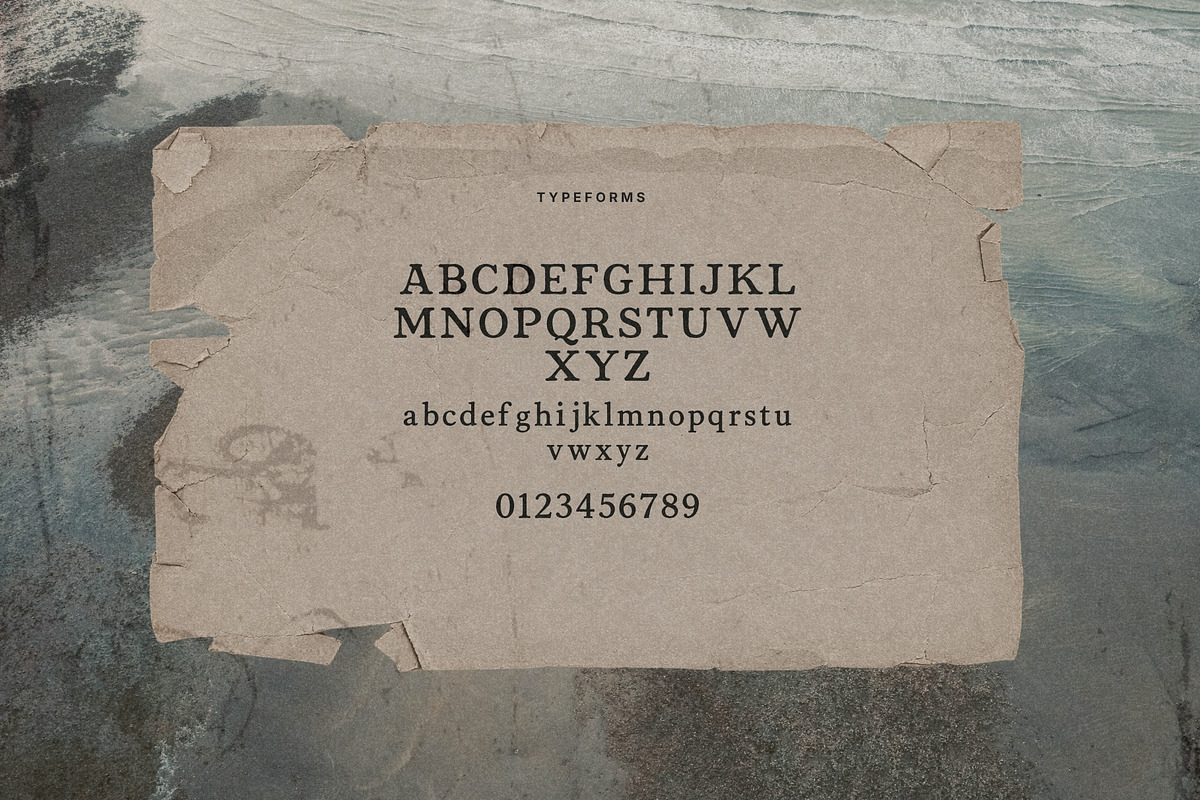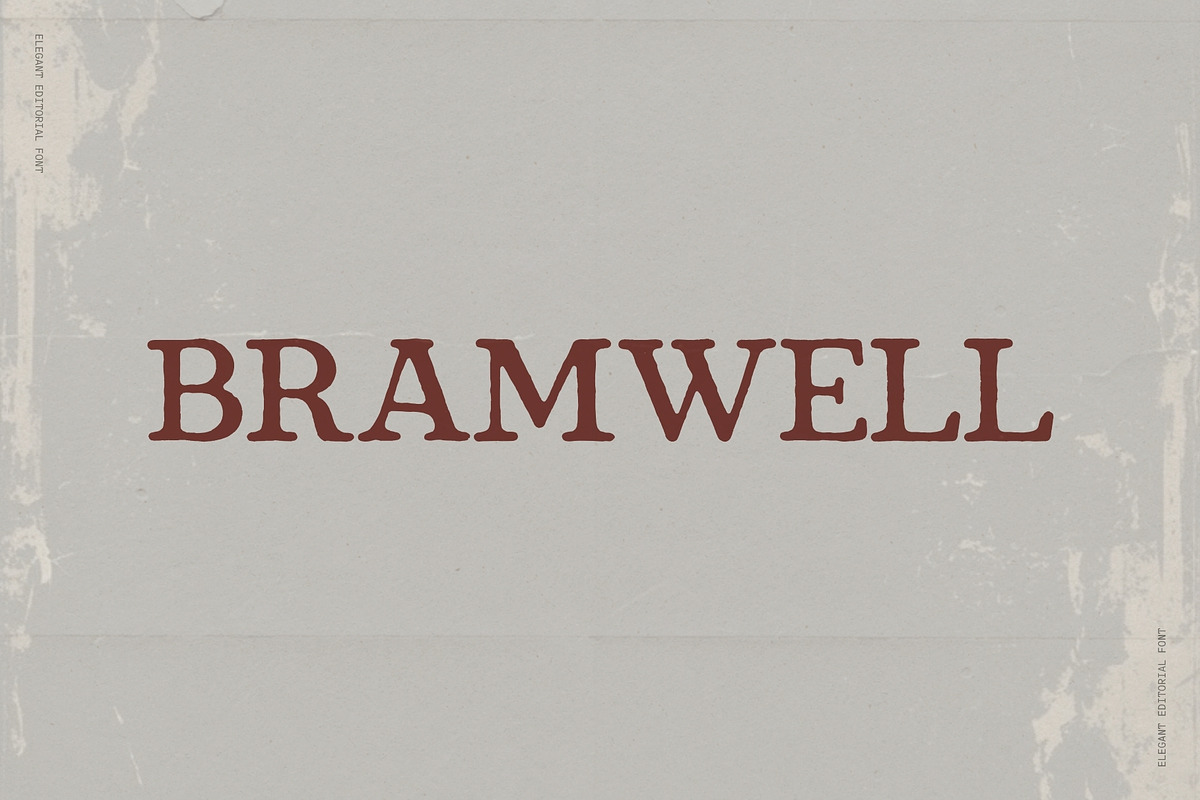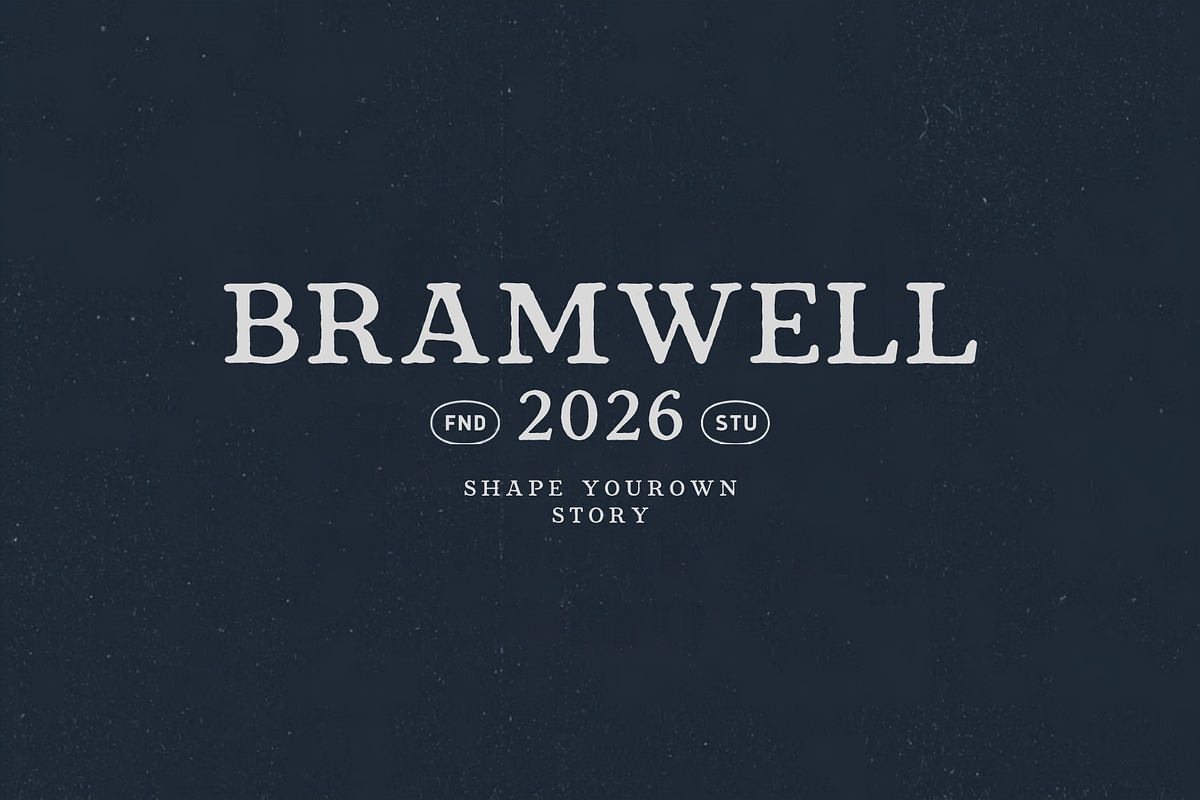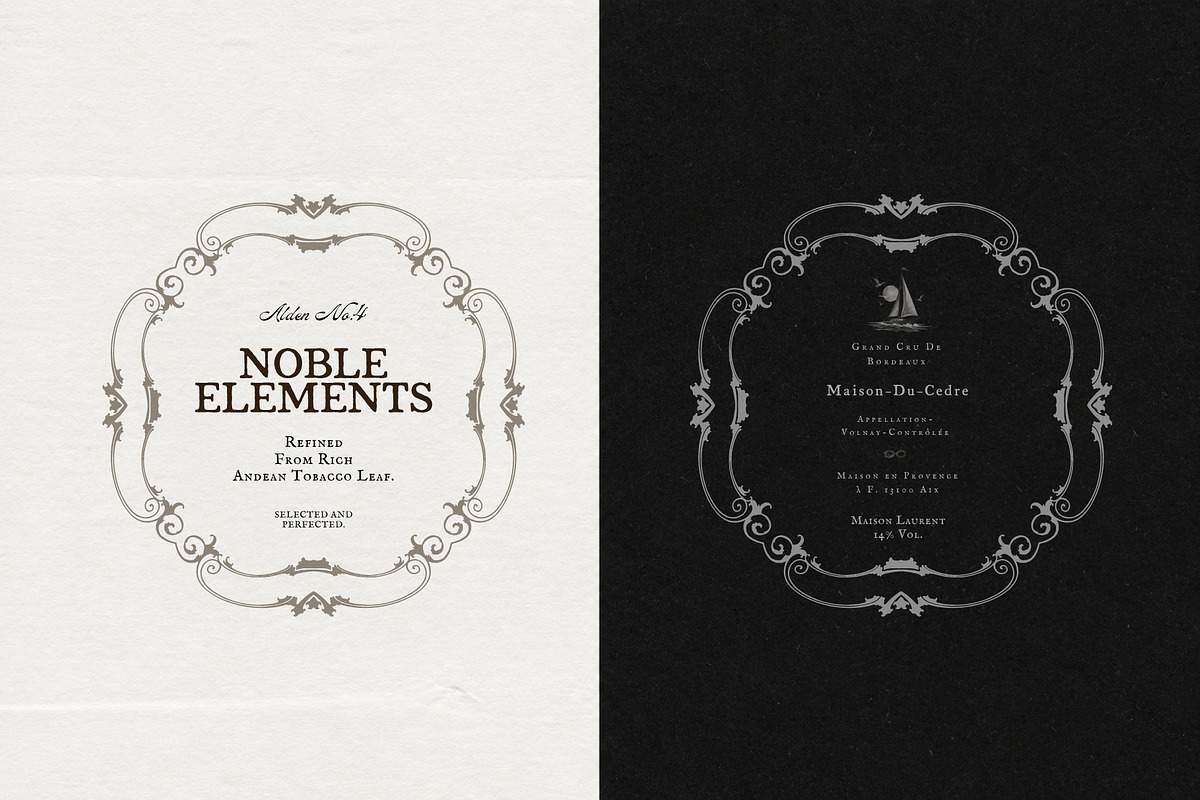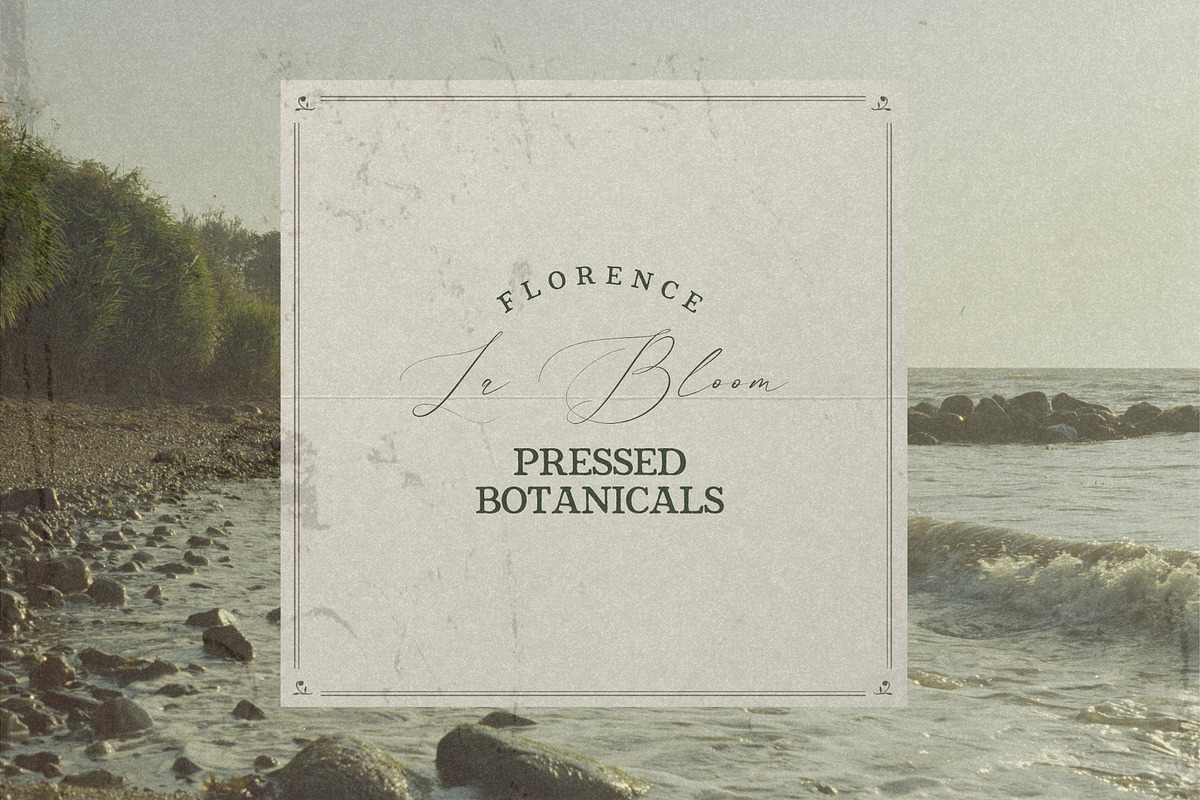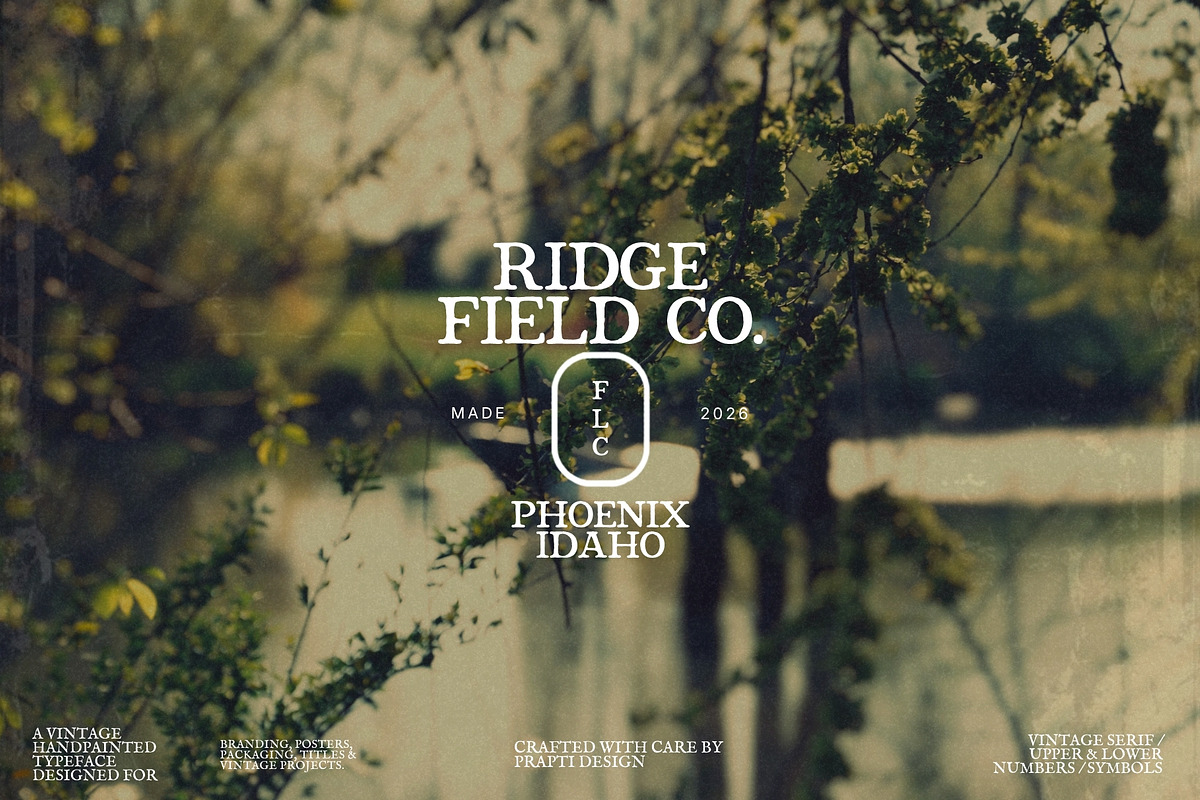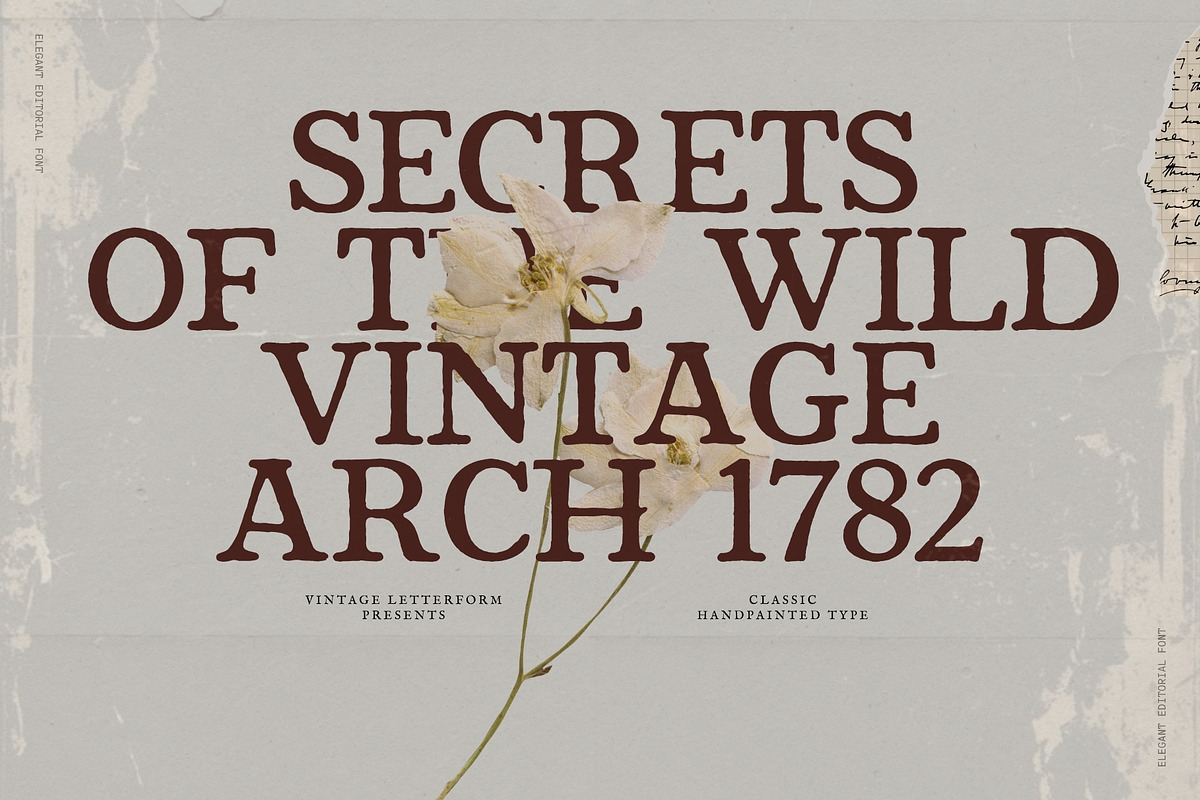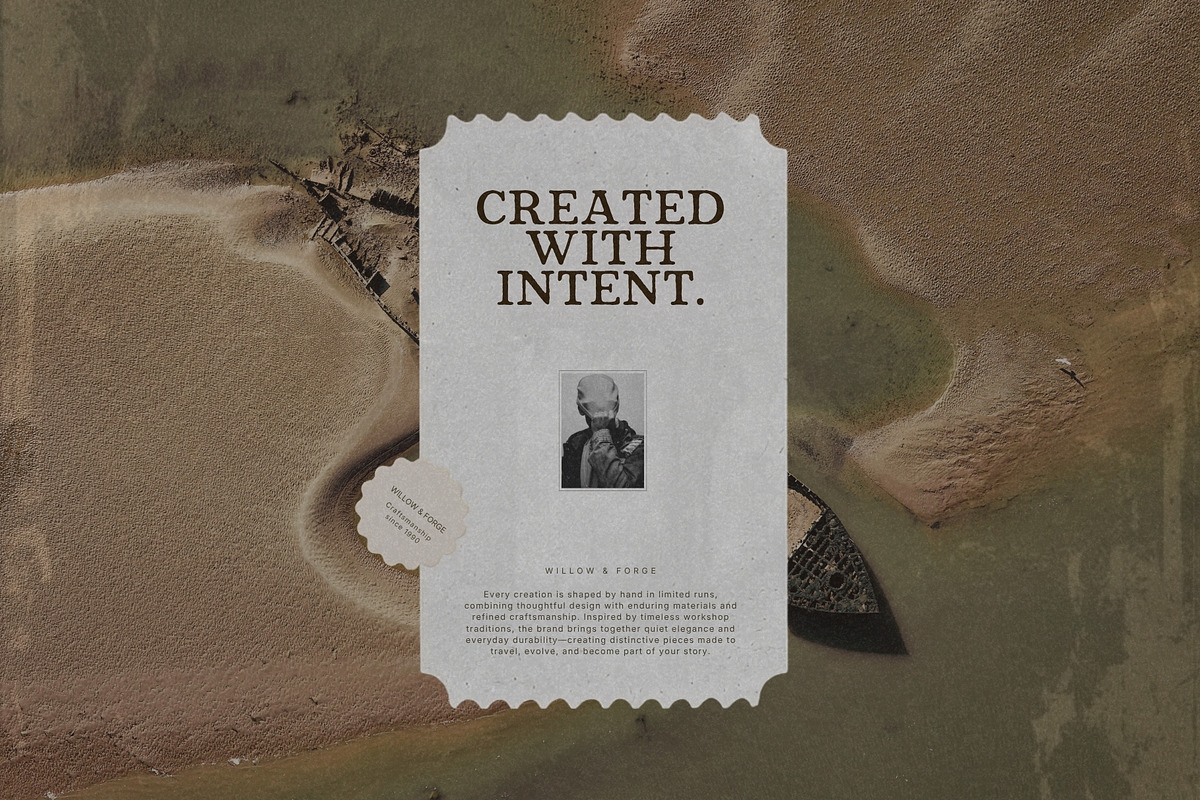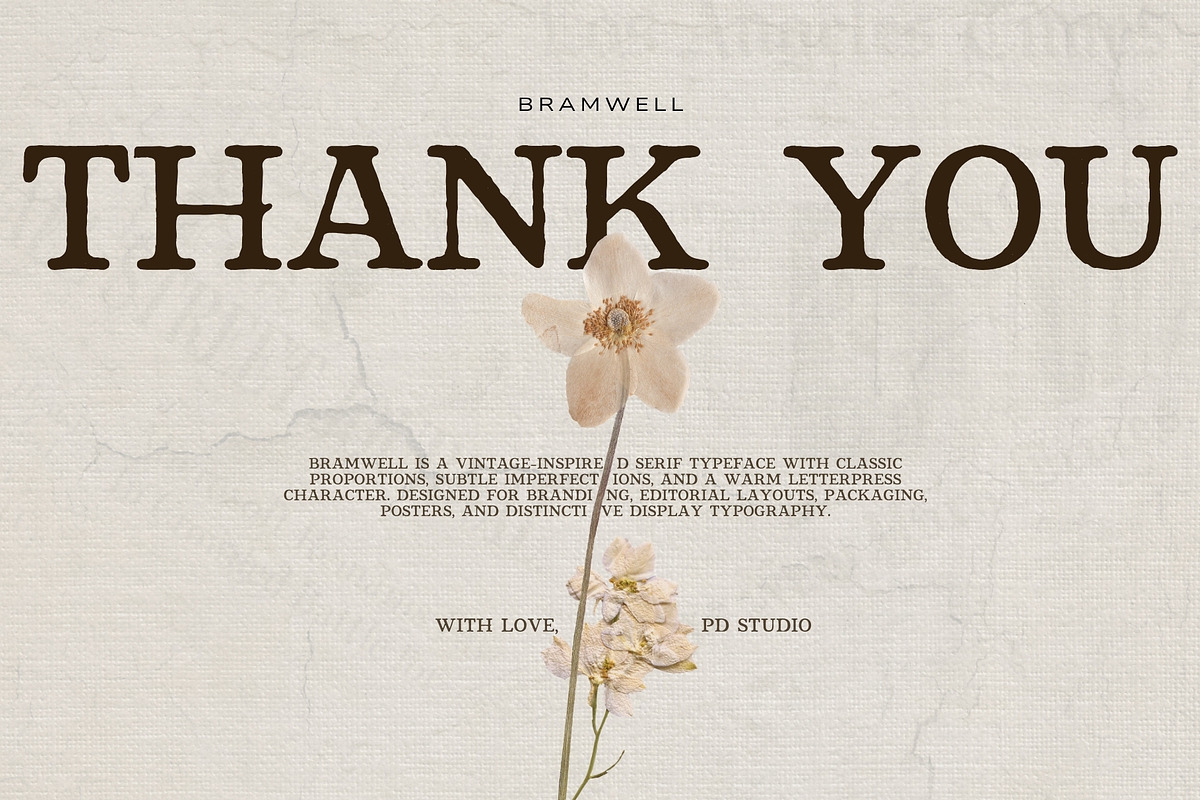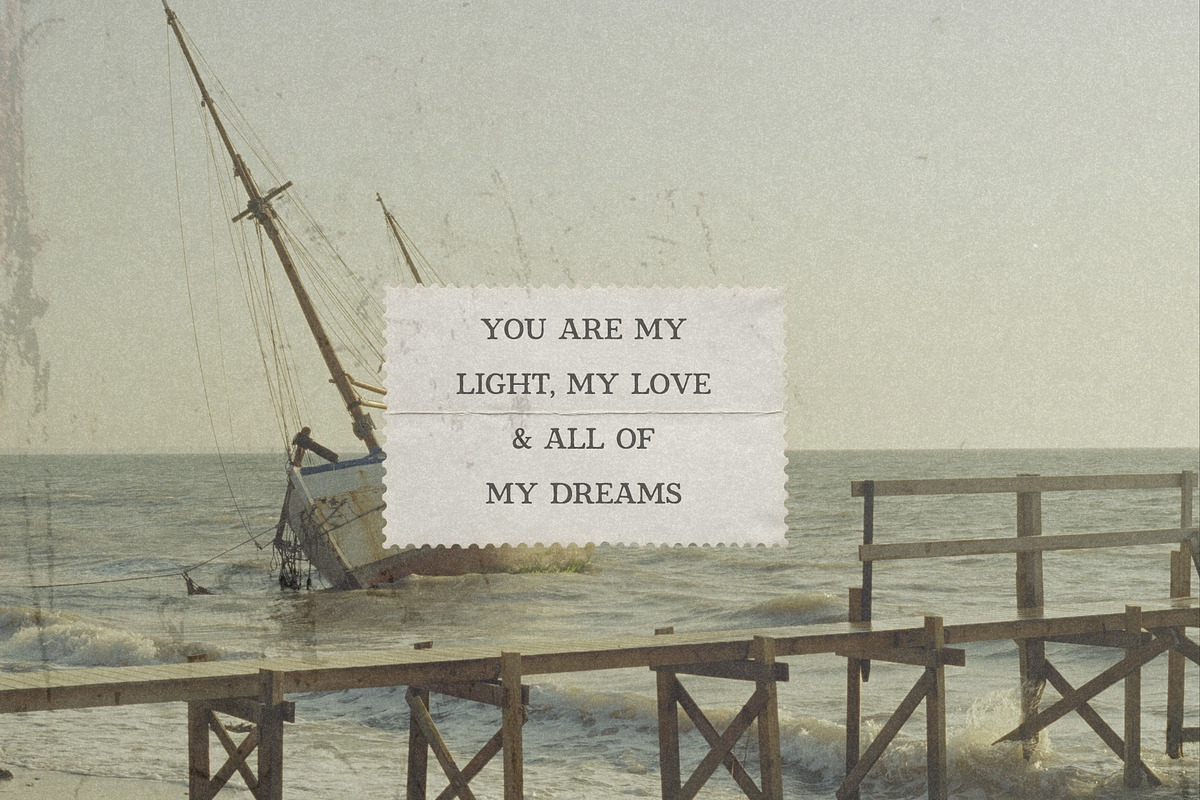
Bramwell - Vintage Serif
Bramwell - Vintage Serif Font
Bramwell is a vintage serif display typeface with a warm, handcrafted character and subtle imperfections inspired by classic printed and hand-painted typography. Its distinctive letterforms bring a nostalgic, timeless feel to branding, posters, packaging, editorial designs, invitations, labels, headlines, and creative projects.
Vintage Serif Display Typeface
Uppercase A–Z
Lowercase a–z
Numbers 0–9
Punctuation & Symbols